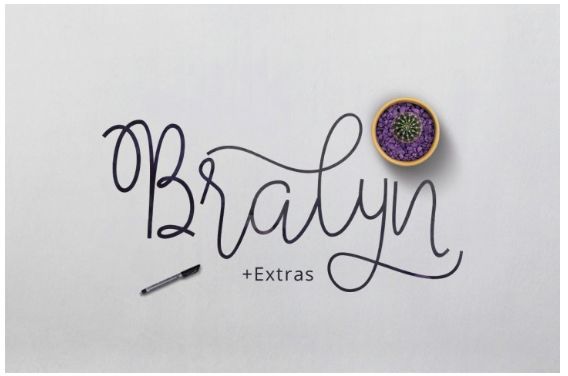
Font Frenzy: Bralyn Script
Bralyn Monoline Script is a new modern calligraphy Script font, combines from copperplate to contemporary typeface, classic and elegant touch. With extra bouncy curves & loops, Bralyn Script is guaranteed to make your text stand out – perfect for logos, printed quotes, invitations, cards, product packaging, headers and whatever your imagination holds.